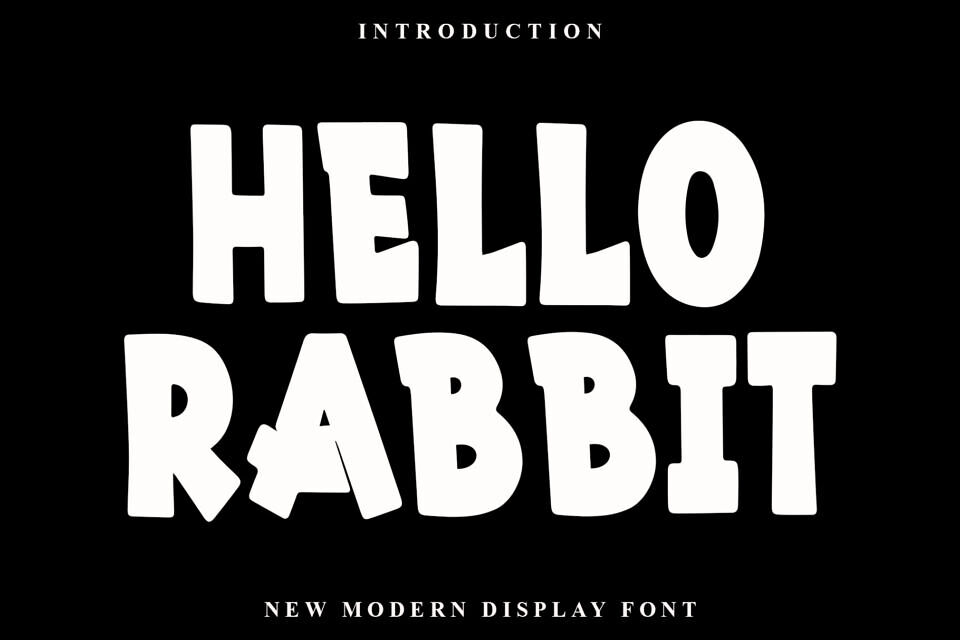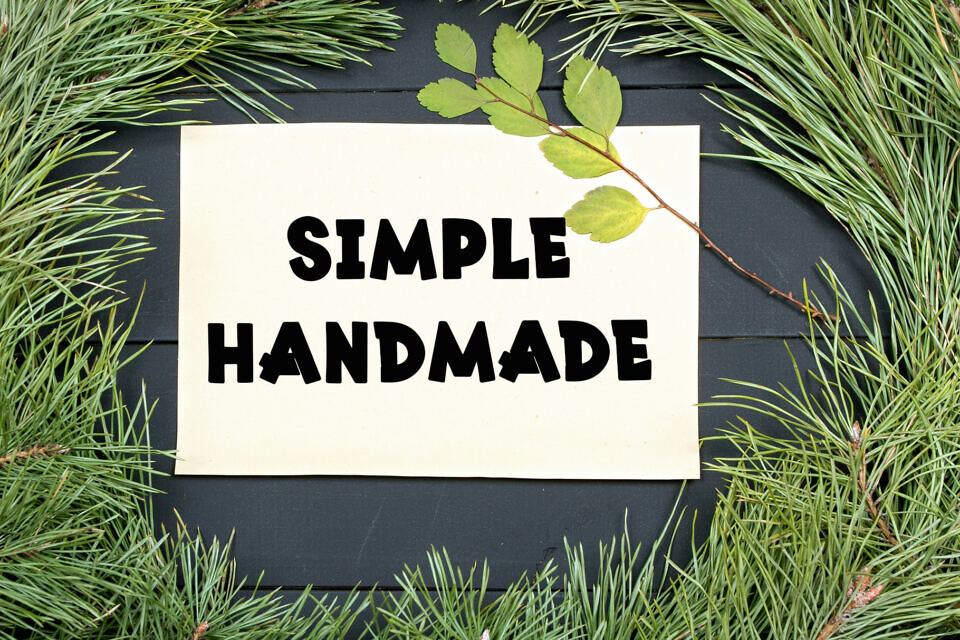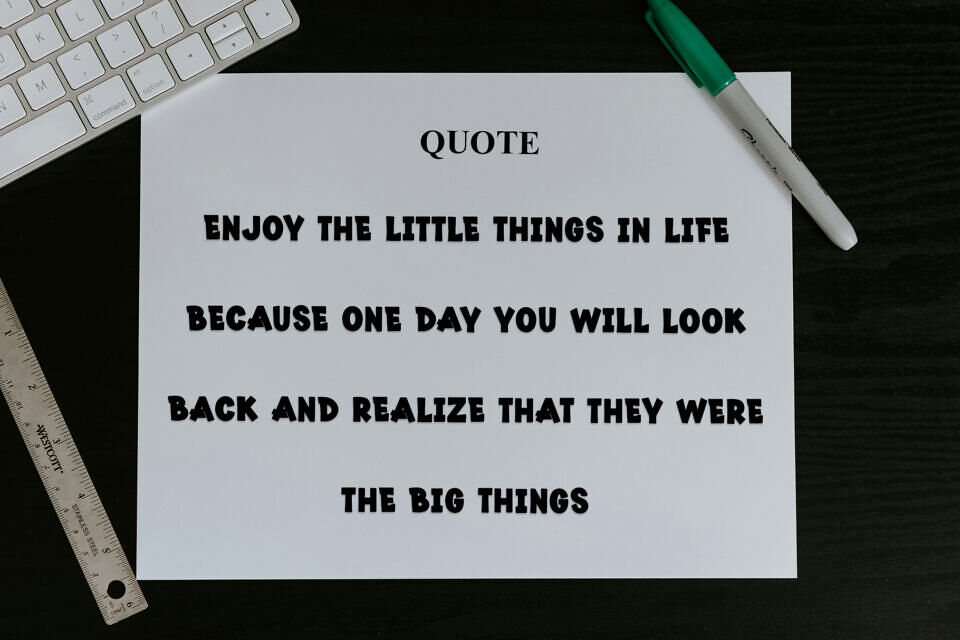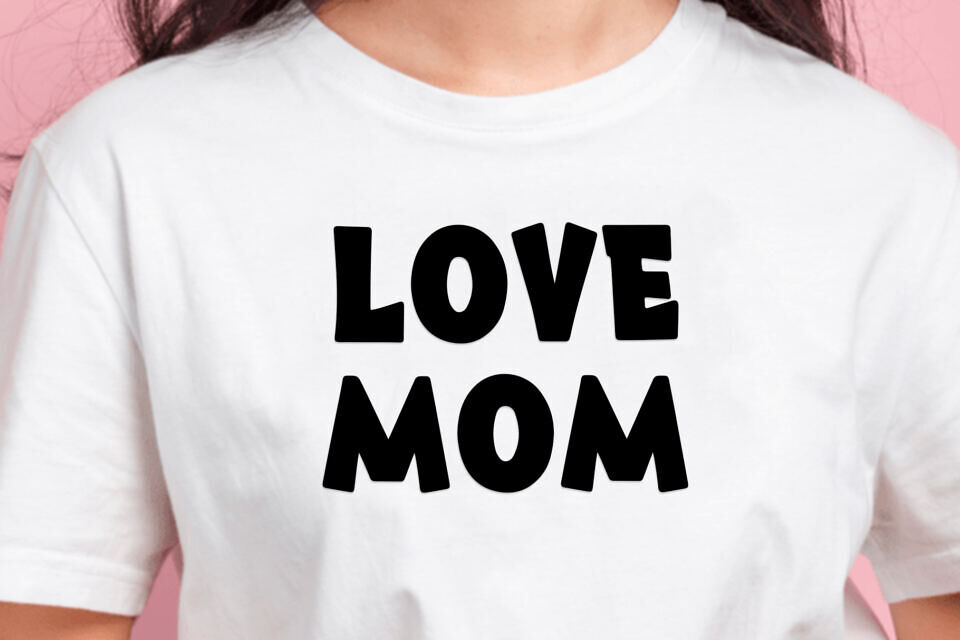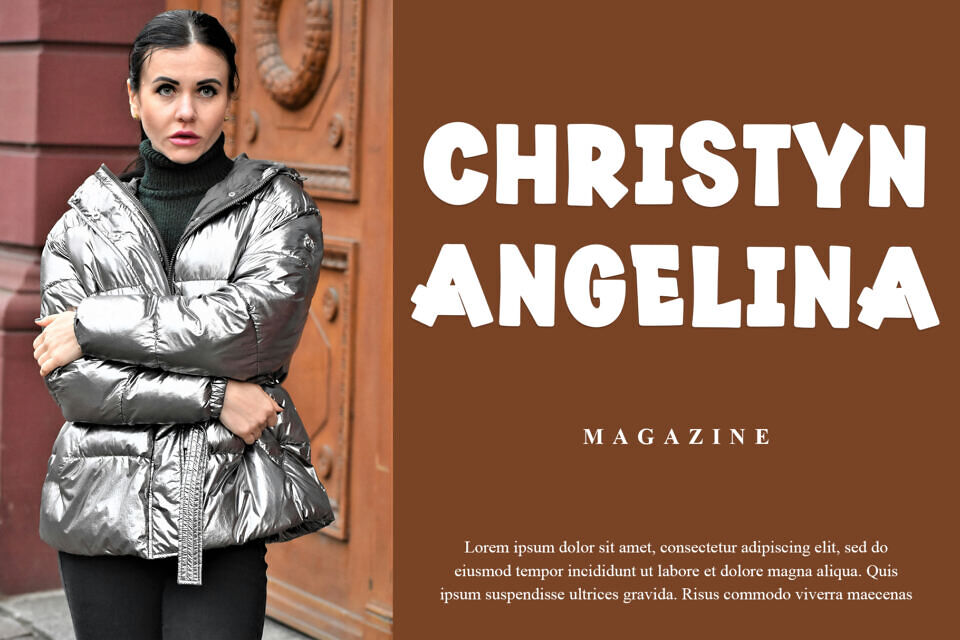
Hello Rabbit is a playful handdrawn font with a cheerful and friendly personality. Its smooth, rounded letterforms and casual style make it ideal for invitations, headlines, children’s designs, branding, social media graphics, and DIY projects. The font adds a warm, personal touch while remaining easy to read, making it a great choice for creative designs that need a fun and charming appearance.